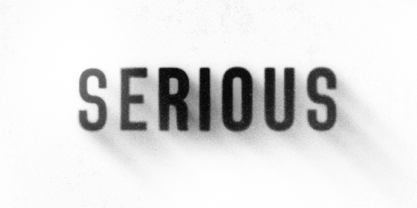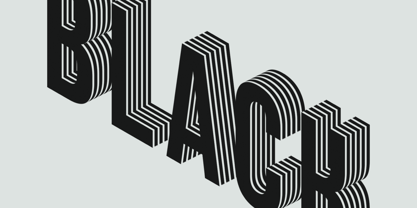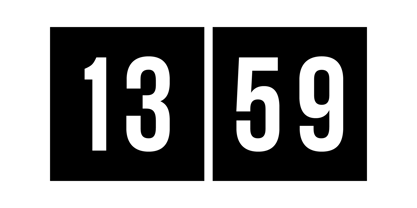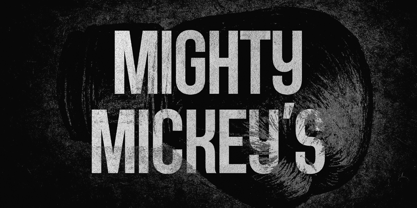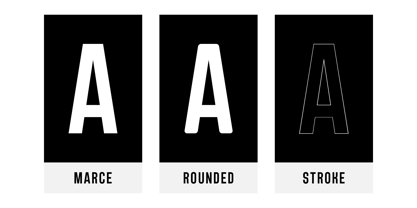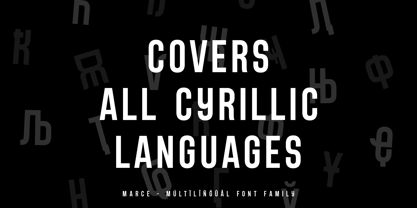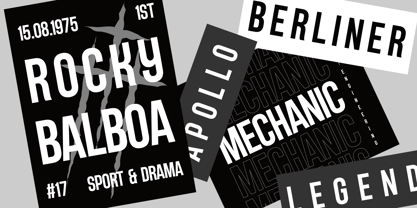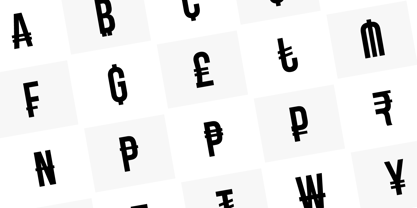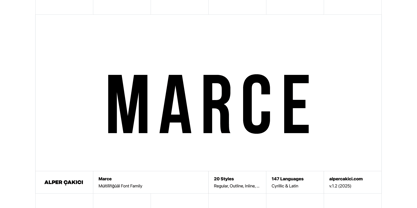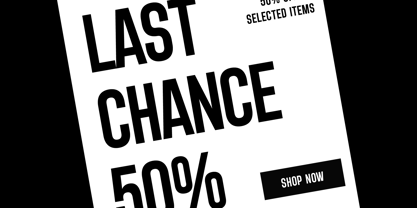
Marce
La famille de polices Marce a été conçue par Alper Çakıcı et publiée par AlperCakici. Marce contient 20 styles et options de package familial. En savoir plus sur cette famille
Marce is a geometric sans serif typeface that exudes presence — clean, confident, and designed for impact. Its rounded precision paired with sharp structure strikes the perfect balance between modern minimalism and bold expression. With 20 meticulously crafted styles, Marce provides a full creative range, from sleek inline and outline cuts to commanding ultra-black weights. Whether used in print or digital formats, it delivers exceptional clarity for logos, headlines, posters, packaging, and branding. Every curve, counter, and connection is shaped for harmony, featuring balanced proportions, smooth transitions, and a refined edge that maintains its strength in any layout. ✨ Inside the family, you will find: • 20 fonts — Inline, Outline, Regular, Rimmed, Rounded, Stroke, and matching Italics • Clean geometric construction with a smooth, modern finish • Ideal for bold titles, elegant headers, and timeless identities • Supports 147 languages, including full Cyrillic coverage With precise kerning and carefully tuned spacing, Marce ensures professional results across every medium. Combining classic geometric proportions with a contemporary aesthetic, it’s a typeface that is both versatile and distinctive — designed for creators who value precision, clarity, and attitude. Marce doesn’t just communicate; it commands attention.